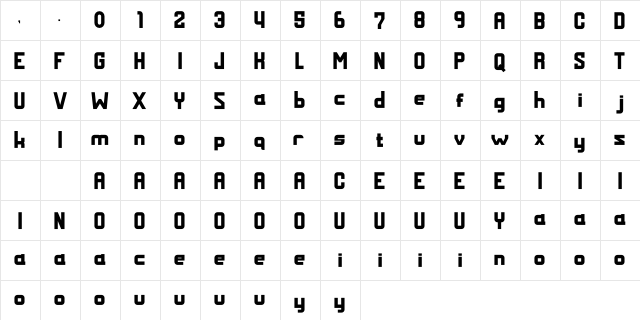
MALDINI Bold
| Designer | EKNOJI KOJI |
Design Context for MALDINI Typeface
MALDINI takes a measured approach to typography — its balanced proportions and neutral character make it a reliable workhorse for both digital and print work. The heavy weight commands attention and anchors typographic hierarchies.